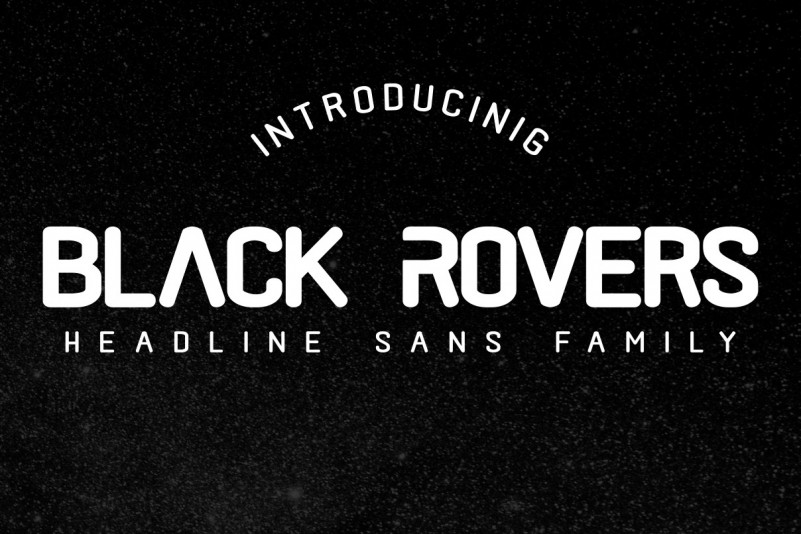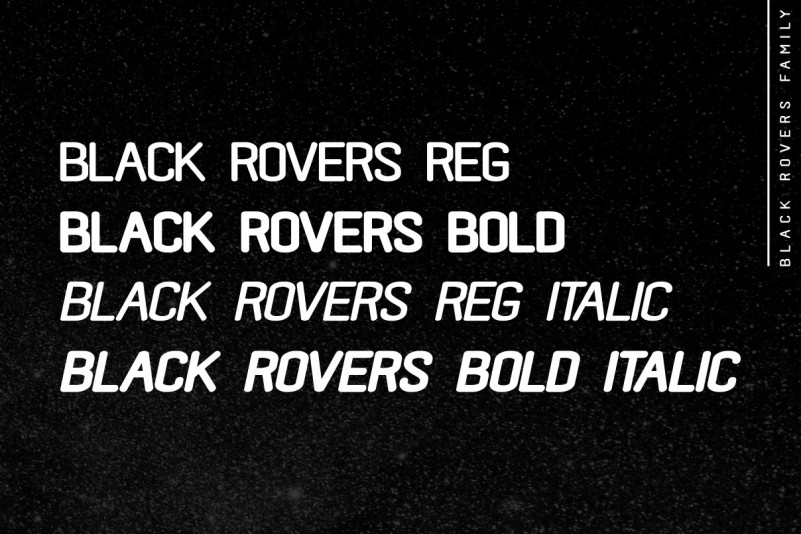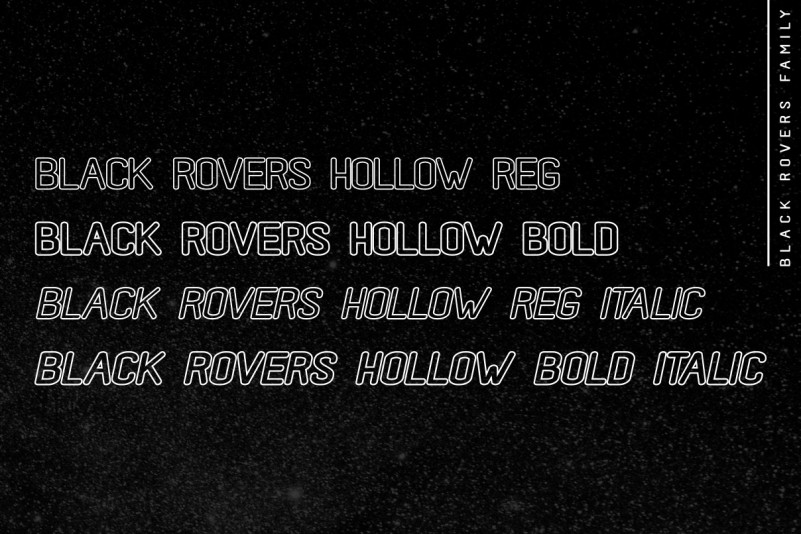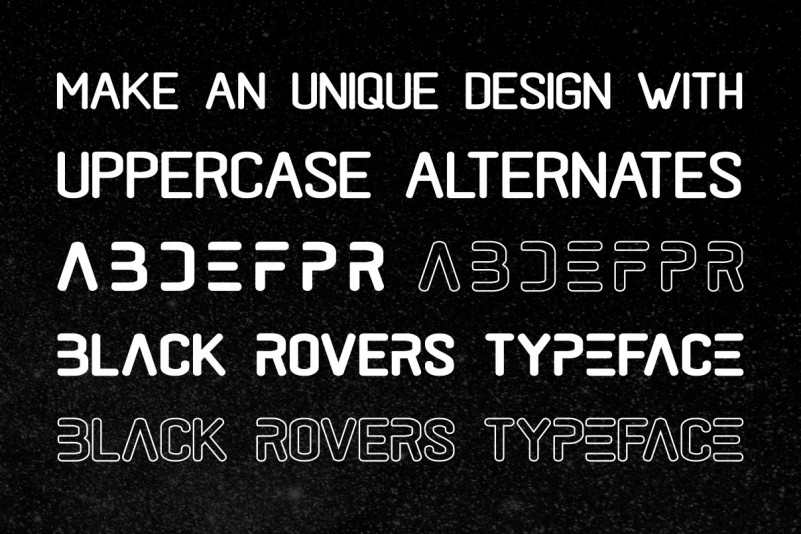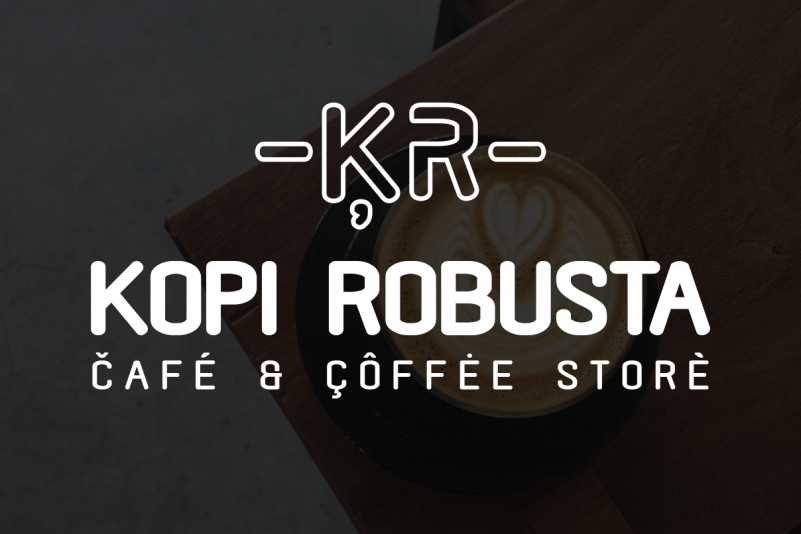
Black Rovers Sans Font
Black Rovers is a striking sans serif font with a bold and modern charm. It will add a touch of minimalism to any design project.
-Four weights Italic and Hollow in 8 Font
-Extensive Multilingual support
-Titling / all caps design
-OpenType features (Alternate)